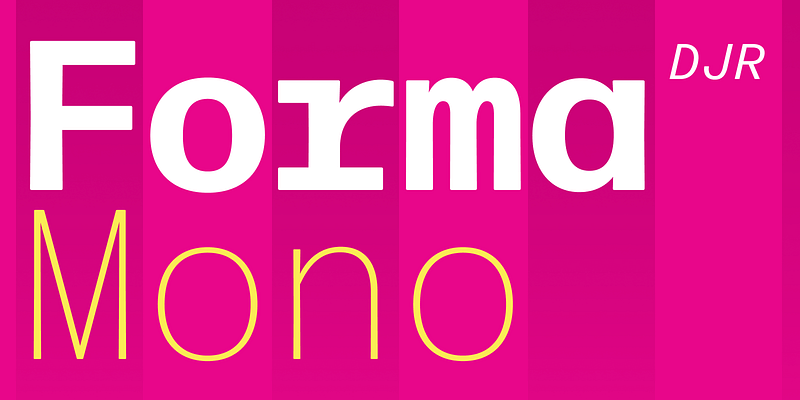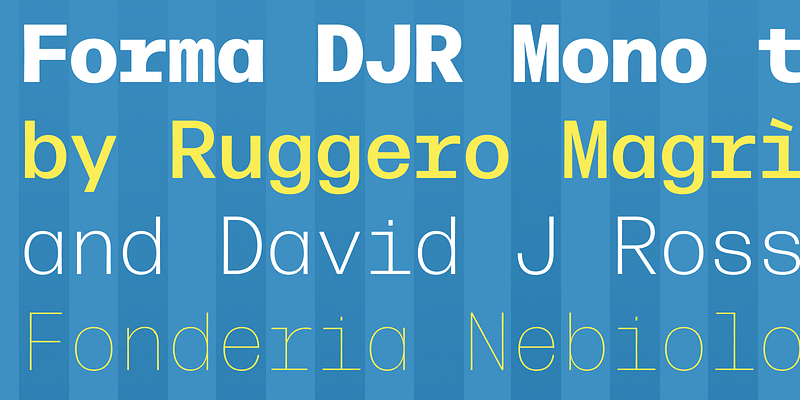
In Forma DJR Mono, Ruggero Magrì has taken David Jonathan Ross’s revival of the classic neo-grot from Nebiolo and brought it in harmony with the limitations of the monospaced grid. On its own, it excels at conveying technical data with clarity and poise; paired with its proportional cousin, it is the perfect option for charts, graphs, and tabular data. It strikes a distinctive tone, preserving the warmth of Forma DJR with inky, rounded corners, while never making you feel like it was produced by a typewriter.
David Jonathan Ross draws letters of all shapes and sizes for custom and retail typeface designs from his studio in the woods of Western Massachusetts. A native of Los Angeles, He began drawing typefaces at Hampshire College and joined The Font Bureau in 2007 where he honed his bézier-wrangling skills. Now he publishes his typeface designs at his own foundry, DJR, as well as working on projects with Type Network and developing unusual display faces for his Font of the Month Club.